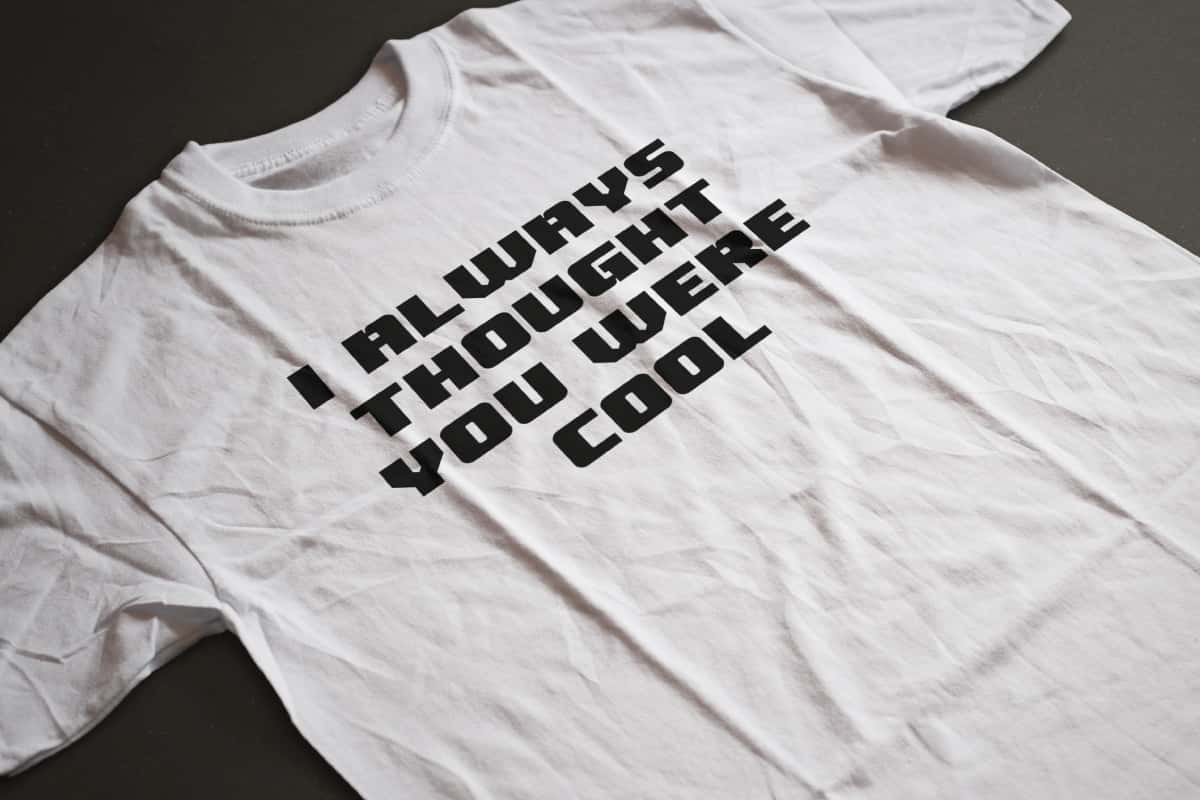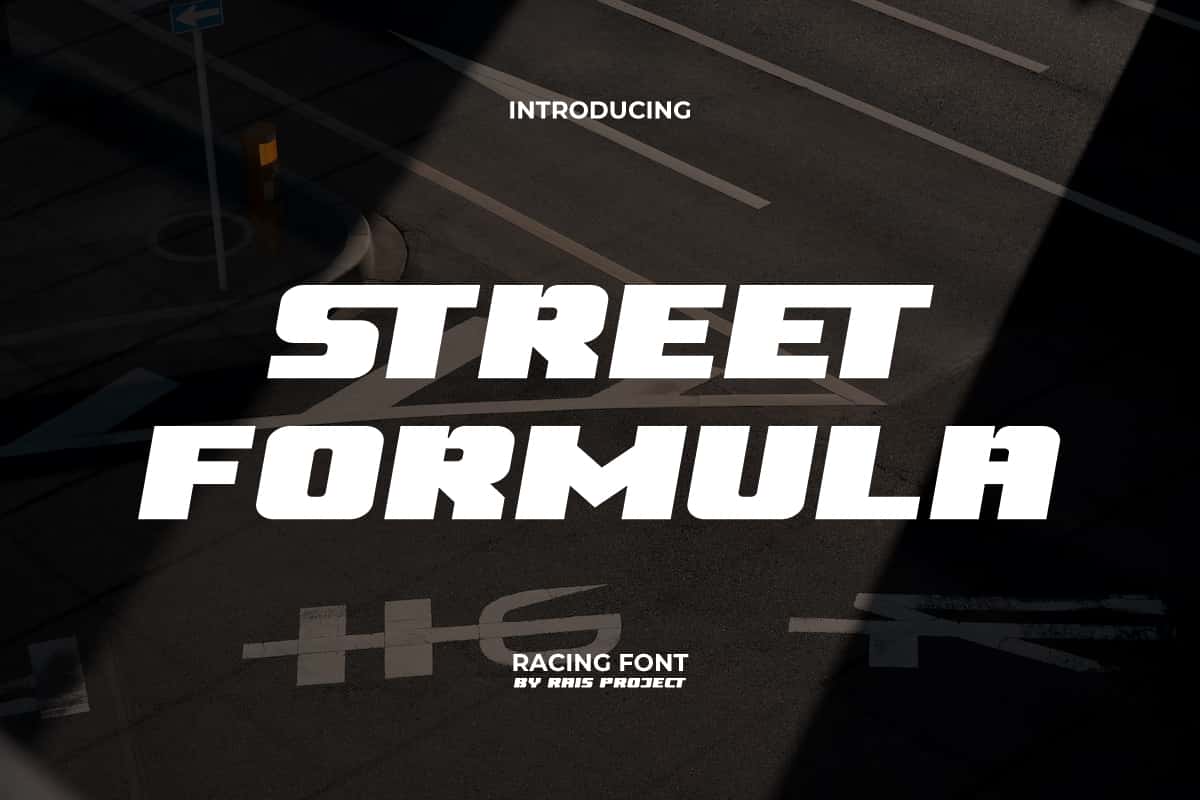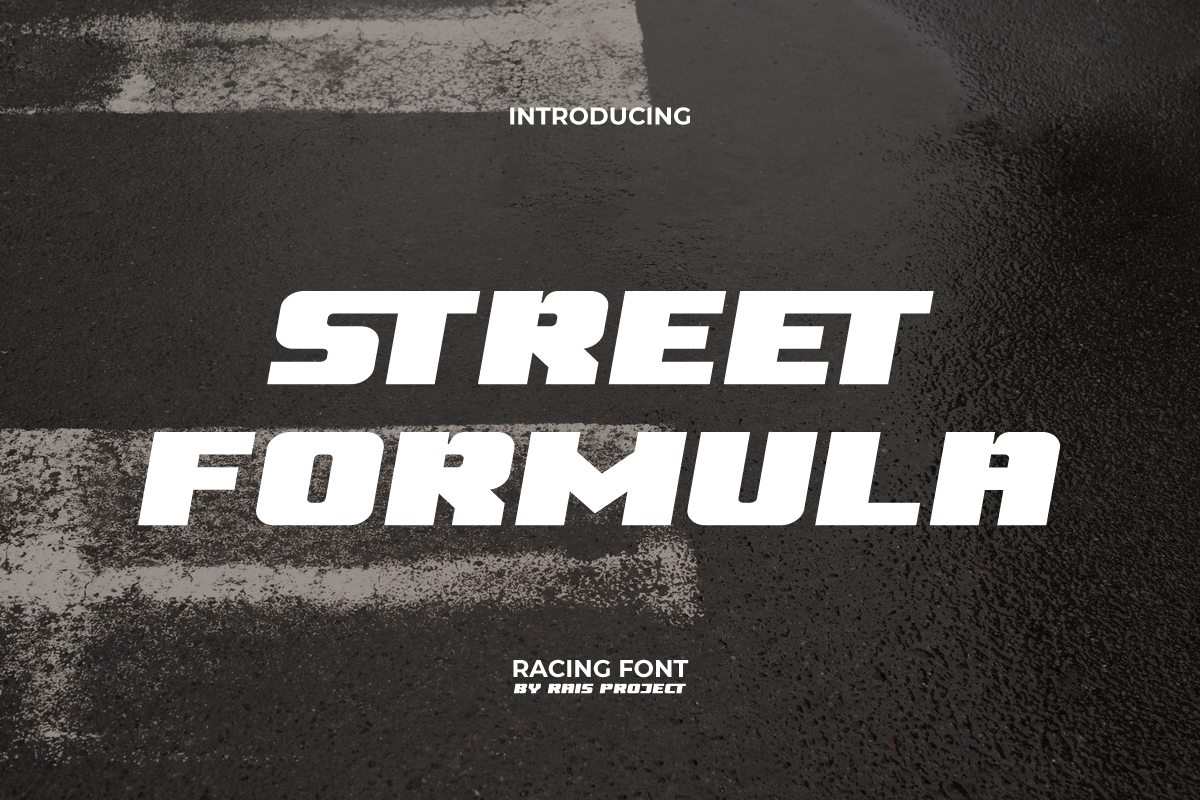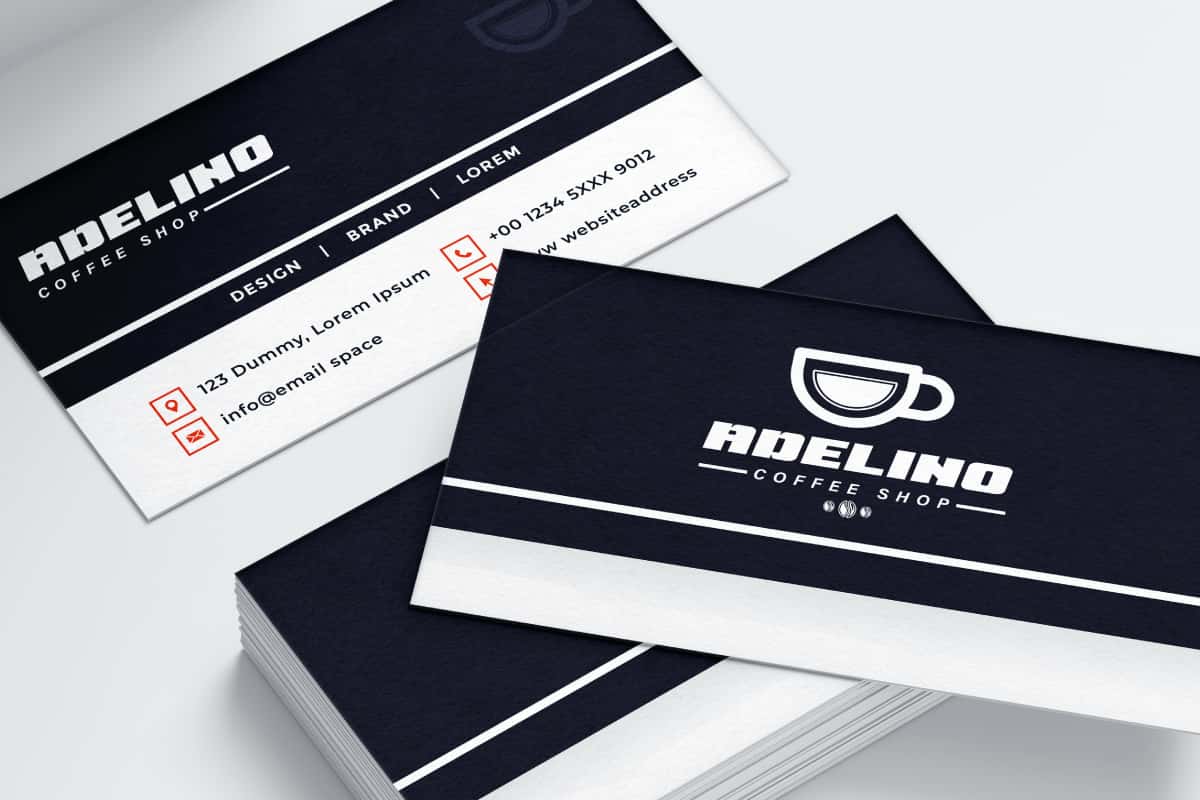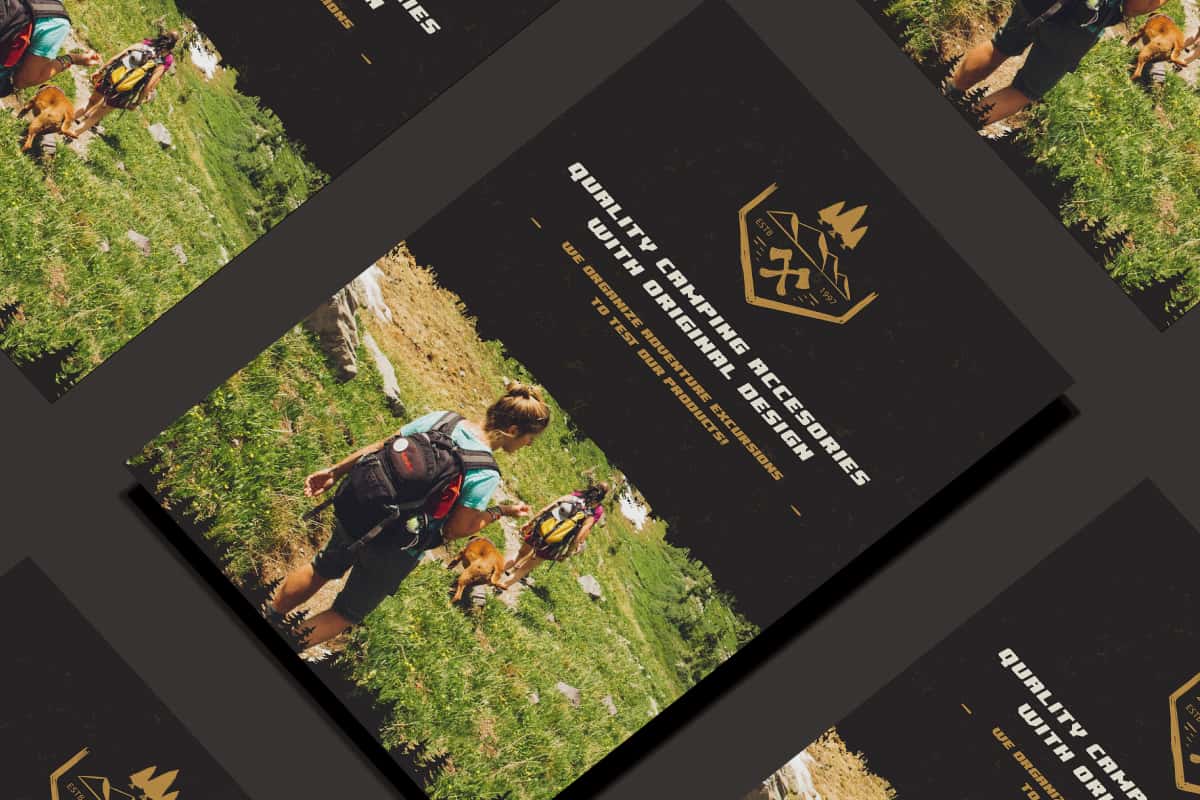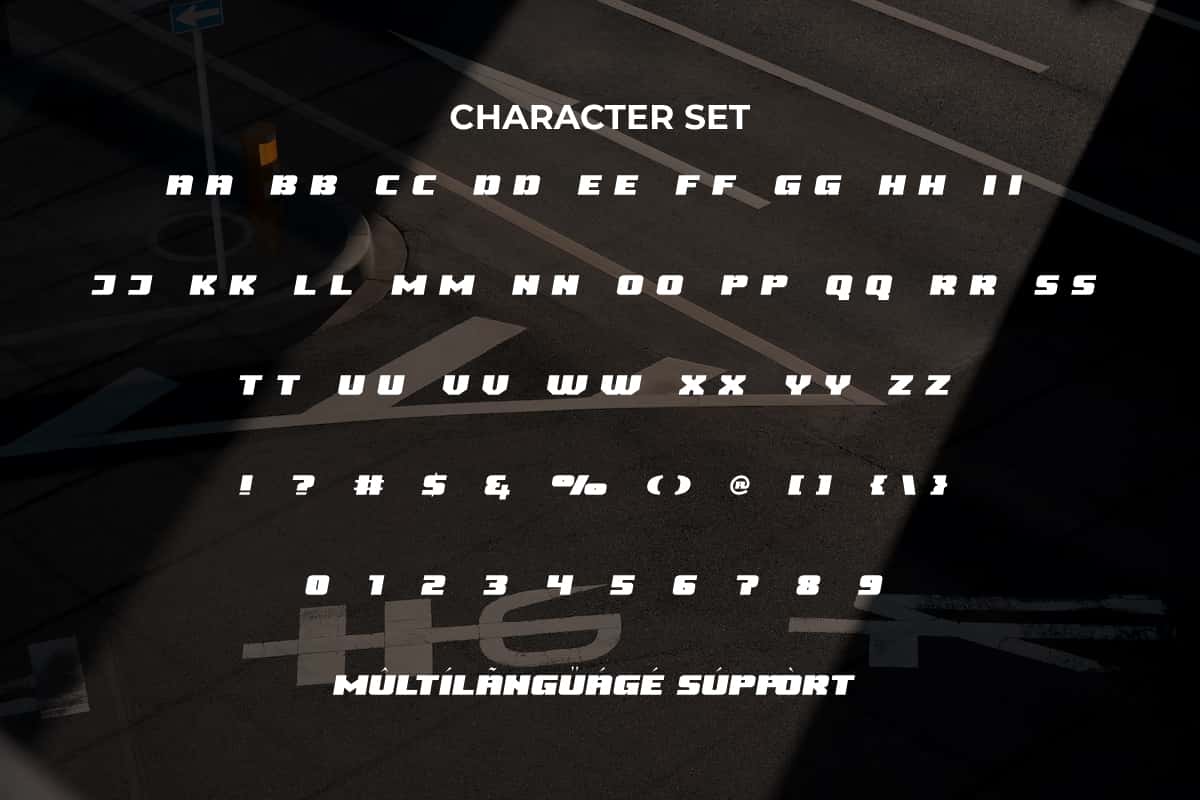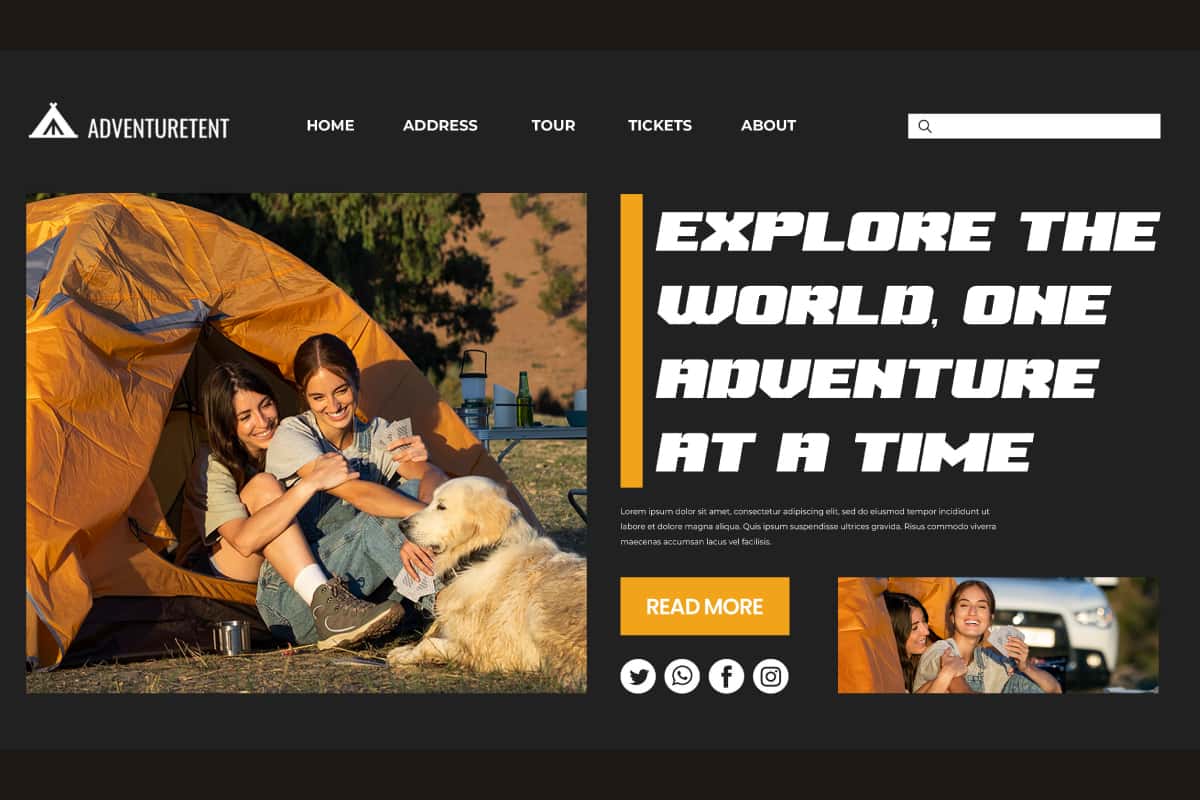
Street Formula Font
Street Formula Font is a modern style font with a cool concept to make your design look more trendy!
Street Formula Font is a sharp display font for racing theme, by RaisProject. This font can make your design stand out because of its sharp and easy-to-read characters. It will be great for poster, label, signage, stationery, custom design, product packaging, quotes, brand image, advertisement, invitation, marketing material, website page, and more!
Street Formula Font includes a full set of ALL CAPS for Uppercase and Lowercase Letters, Numerals, and large range of Punctuation. This modern font will be suitable for various industries, such as sports, automotive, fashion, game, barber shop, cafe, event or festival, photography, printing, publishing, etc.